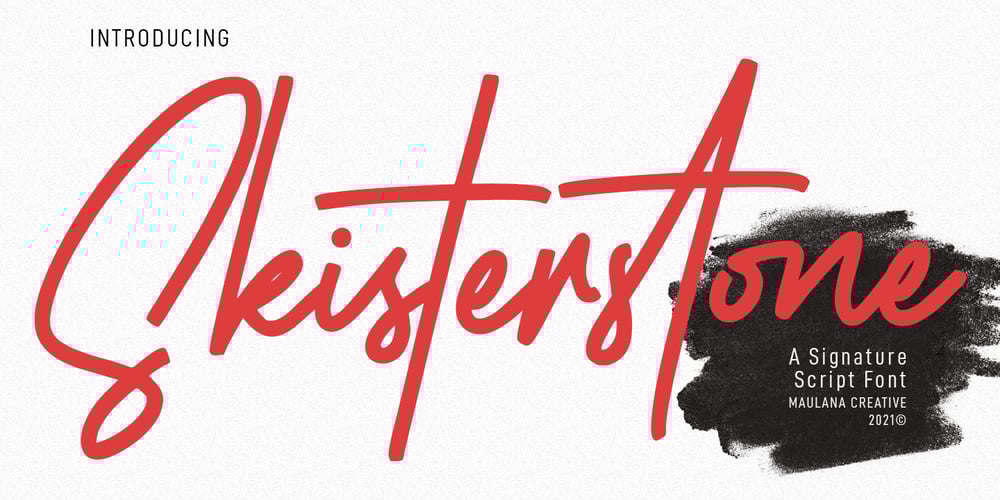
Skisterstone Font Family was designed by Gilang Maulana and published by Maulana Creative. Skisterstone contains 1 styles and family package options. Skisterstones Signature Script FontSkisterstone is a Casual Signature Script font. With regular mono-line stroke, fun character with a bit of ligatures. To give you an extra creative work. Skisterstone font support multilingual more than 100+ language. This font is good for logo design, Social media, Movie Titles, Books Titles, a short text even a long text letter and good for your secondary text font with sans or serif. Make a stunning work with Skisterstone font. Cheers, MaulanaCreative